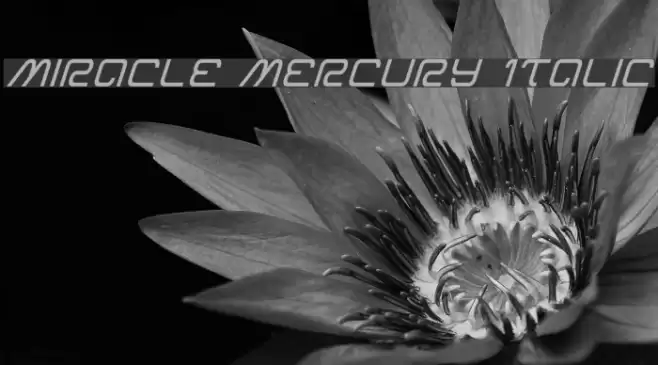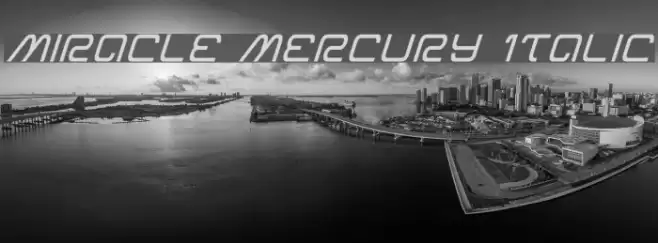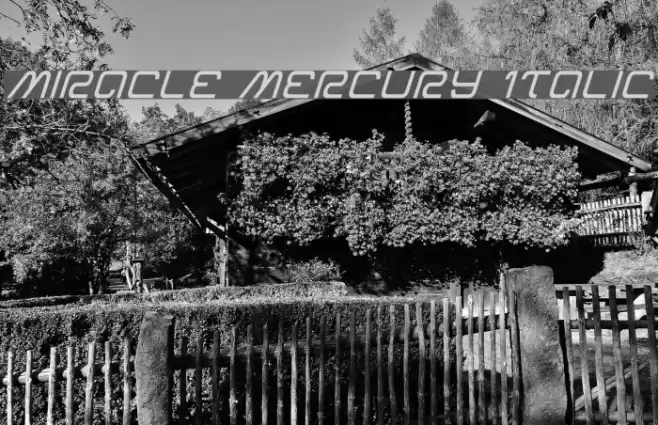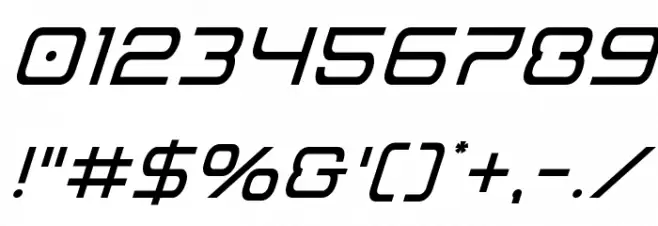
Miracle Mercury Italic Font
Miracle Mercury Italic Description
This font features a sleek, italicized design with a futuristic and dynamic appearance. The characters are slightly slanted, giving a sense of motion and speed. The strokes are consistent in thickness, providing a uniform look across all characters. The design is clean and modern, with a touch of elegance that makes it suitable for contemporary projects. The numbers and special characters maintain the same style, ensuring a cohesive look throughout any text. This font is ideal for projects that require a modern and stylish touch.
A sleek, italicized font with a futuristic and dynamic style from Uncategorized fonts.
- Proposed Projects: Ideal for branding, technology-related designs, sports team logos, and modern advertising campaigns.
- Use Case: Headlines, Logos, Branding